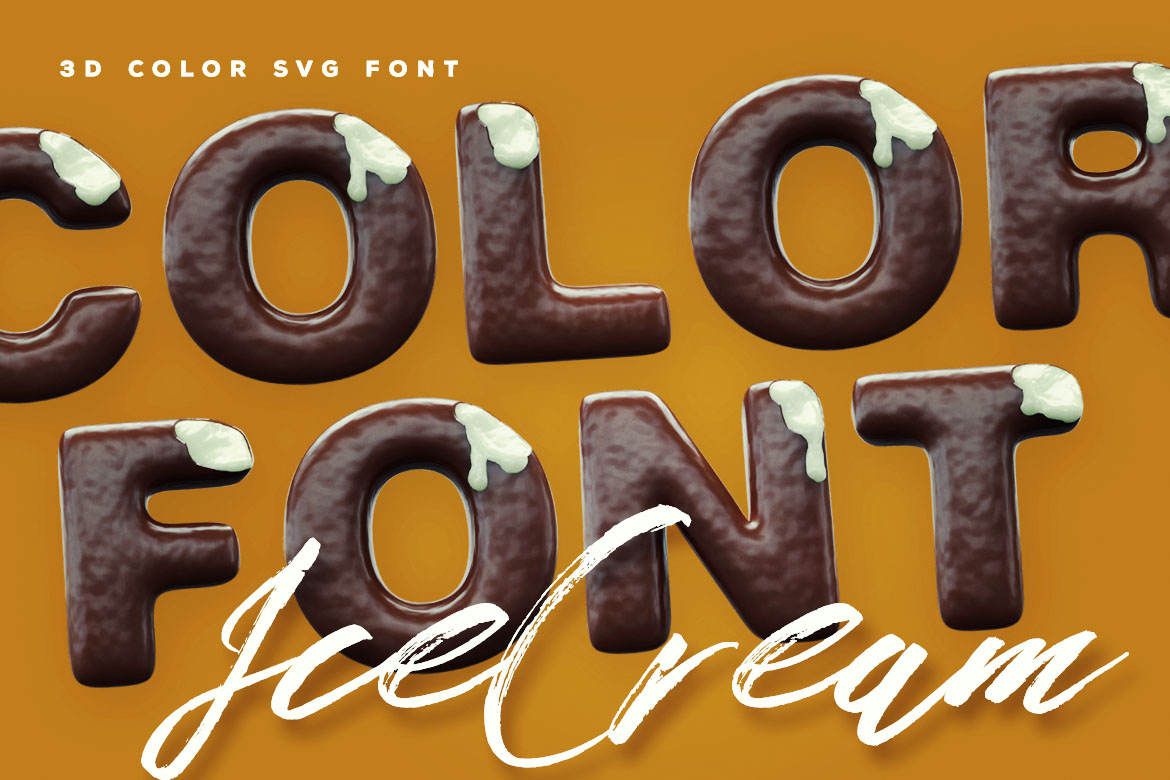
Ice Cream 3D Color SVG Font
Ice Cream 3D Color SVG Font is perfect for ice cream shop branding, frozen treat packaging, dessert parlor signage, summer event graphics, children's party invitations, sweet treat marketing, playful food advertising, and delicious frozen product presentations.
Ice Cream 3D Color SVG Font is exciting because it delivers irresistible frozen treat appeal with innovative 3D color technology that creates realistic ice cream textures and dimensional effects. Its delicious character evokes immediate cravings for cool satisfaction and sweet indulgence that perfectly captures the joyful essence of frozen dessert experiences and summer refreshment.
Ice Cream 3D Color SVG Font family includes full-color 3D variations with ice cream-inspired effects and sweet decorative elements, providing designers with comprehensive options for creating appetizing typography solutions that project frozen treat authenticity and dessert quality.
Creative professionals consistently select Ice Cream 3D Color SVG Font for projects requiring sweet authenticity and frozen treat visual impact. Its appetizing character works magnificently in ice cream boutiques, dessert packaging, frozen treat marketing, and summer venue branding where visual temptation and refreshing presentation drive customer desire. The font's 3D nature creates memorable brand experiences that transport audiences into delicious frozen wonderlands and summer joy.
The Ice Cream 3D Color SVG Font download package includes full-color variations, ice cream textures, and sweet decorative symbols that enhance its frozen treat appeal and design versatility. This comprehensive collection ensures professional results in ice cream-themed design projects requiring appetizing typography character. The font performs exceptionally in digital applications where its 3D color effects and frozen dessert details create significant visual impact and confectionery distinction.
Design teams appreciate Ice Cream 3D Color SVG Font's ability to create instant brand recognition through its distinctive ice cream character and powerful sweet appeal. Its appetizing styling transcends traditional dessert typography while maintaining the delicious impact required for frozen treat market positioning, making it an essential tool for brands seeking to establish irresistible connections through superior ice cream typography and exceptional sweet communication.